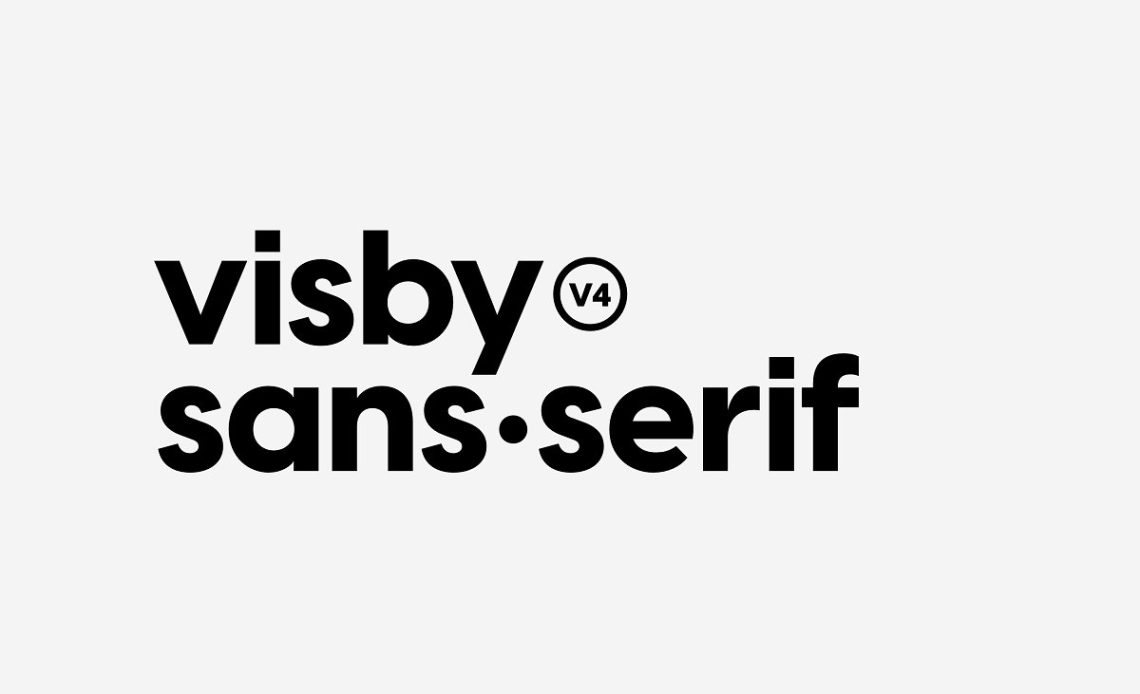
Introducing Visby® CF Geometric Sans Font ver.4, a sleek and modern typeface that's perfect for anyone looking to make an impact. Created by the talented Connary Fagen, Visby® CF draws inspiration from the crisp air and stark beauty of the Arctic. With its hard lines and sharp corners, this sans serif font family exudes sophistication and authority, making it ideal for any project that requires a touch of professionalism.
But don't let its clean lines and geometric shapes fool you. Visby® CF is also incredibly friendly and charismatic in lowercase, with smooth, rounded letterforms that add warmth and personality to any design. Whether you're creating a logo, website, or printed material, this versatile font has you covered.
With eight weights and obliques to choose from, Visby® CF offers endless possibilities for your creative projects. And with extensive Latin and Cyrillic script support, you can be sure that your message will be understood by audiences around the world.
But that's not all. Visby® CF also features a range of OpenType features, including alternates and ligatures, which give you even more options for customizing your text. And with free updates and feature additions, you can be confident that this font will continue to meet your needs for years to come.
Version 4 of Visby® CF has been improved with redrawn letterforms and punctuation, a bolder heavy weight, revised and expanded kerning, additional and improved language support, and improved handling in the Figma design app. These updates make Visby® CF even more powerful and user-friendly, making it a must-have for any designer or creative professional.